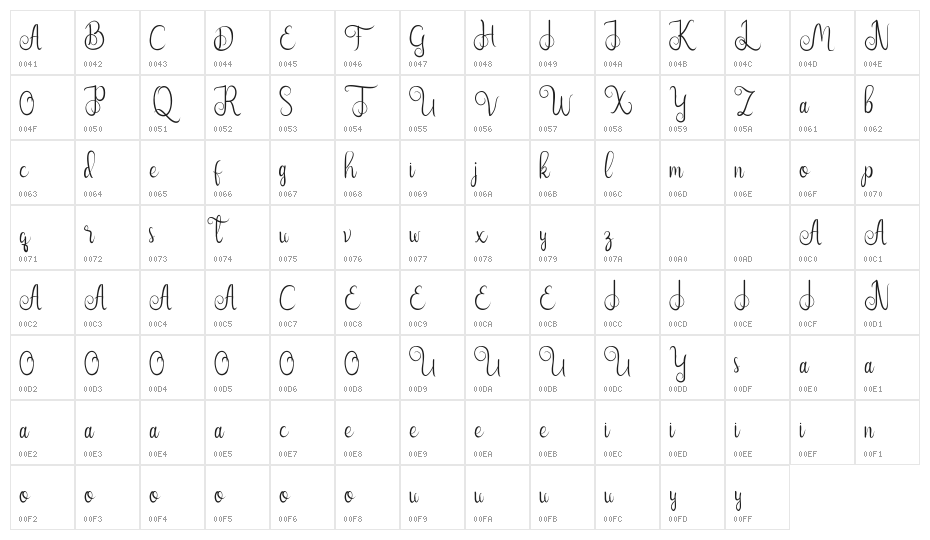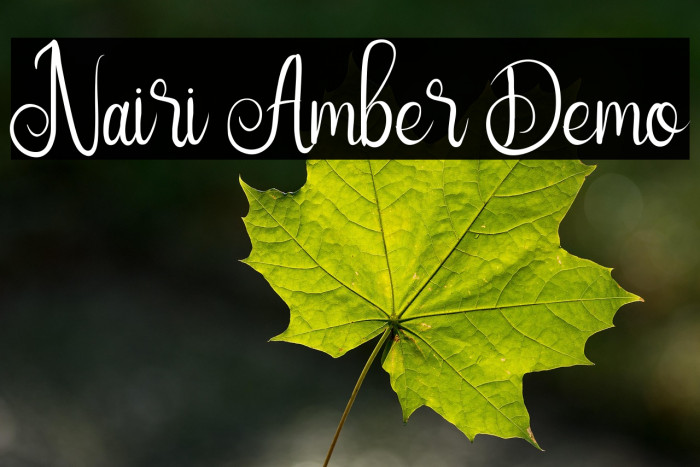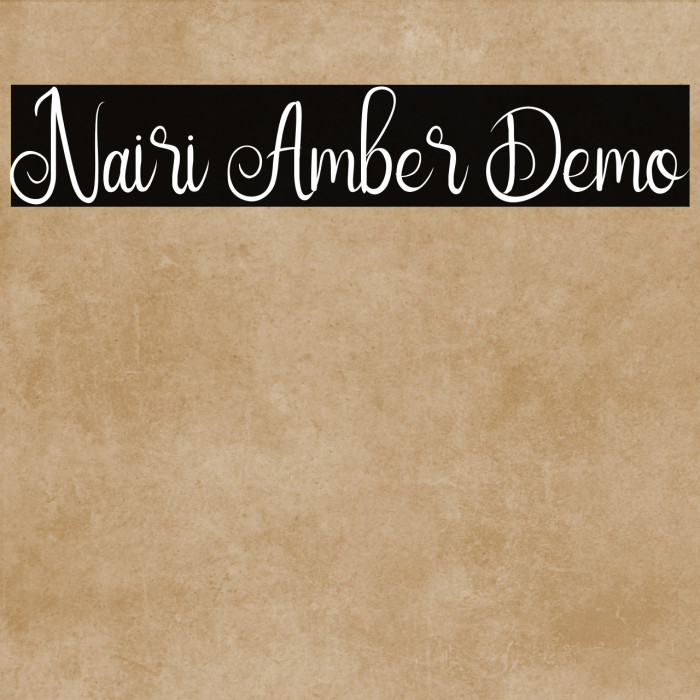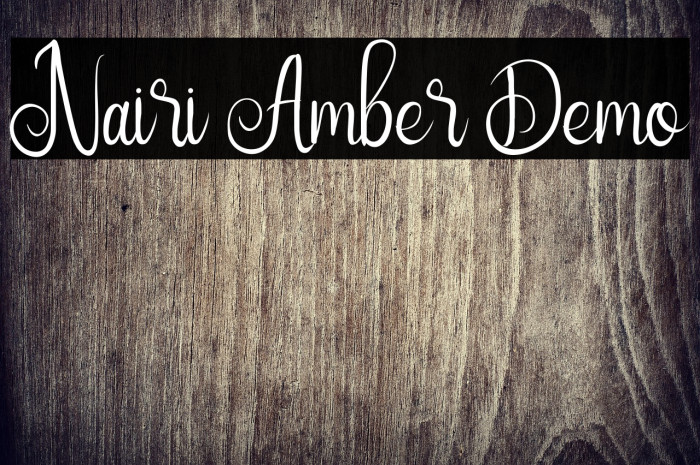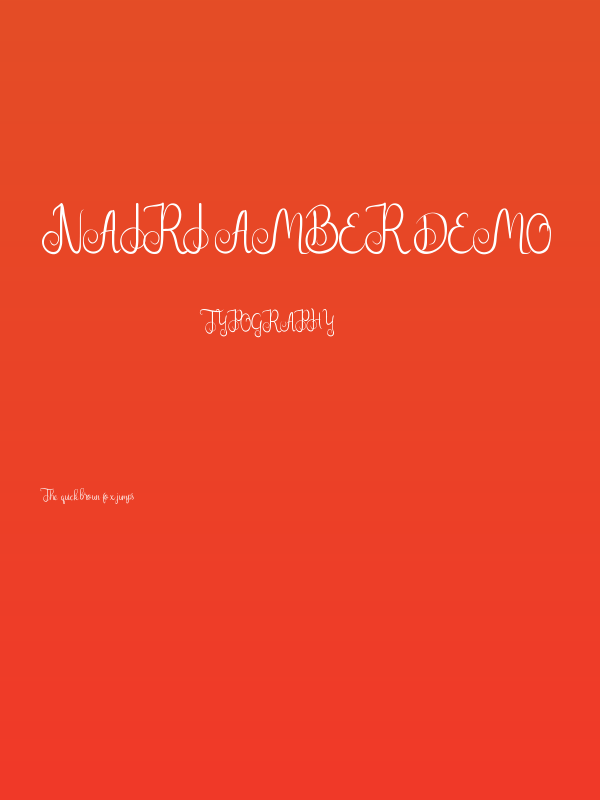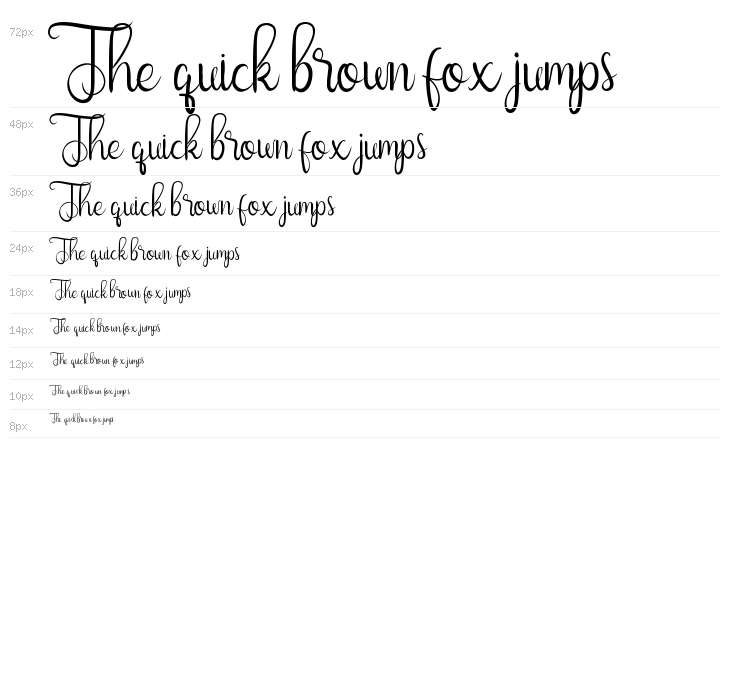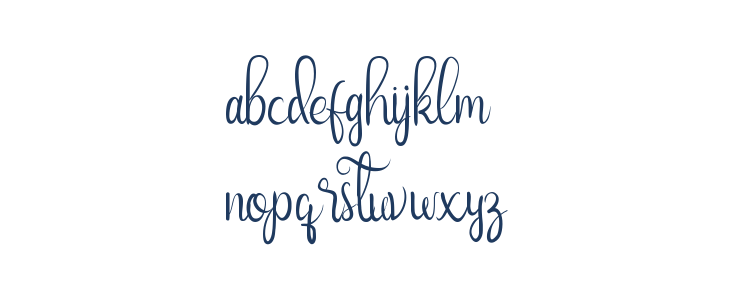
Nairi Amber Demo Font
Nairi Amber Demo Description
This font features an elegant and decorative script style with intricate swirls and loops that give it a sophisticated and artistic appearance. The uppercase letters are particularly ornate, with each character displaying unique flourishes that add a touch of whimsy and charm. The lowercase letters are more restrained but still maintain a graceful flow, making them highly legible while retaining the overall decorative theme. The numbers and special characters are designed to match the ornate style of the letters, ensuring a cohesive look across all text elements. This font is perfect for projects that require a touch of elegance and creativity, such as wedding invitations, greeting cards, and branding materials.
Use CaseHeadlines, Logos, Invitations
Proposed ProjectsWedding invitations, greeting cards, branding materials, artistic posters.